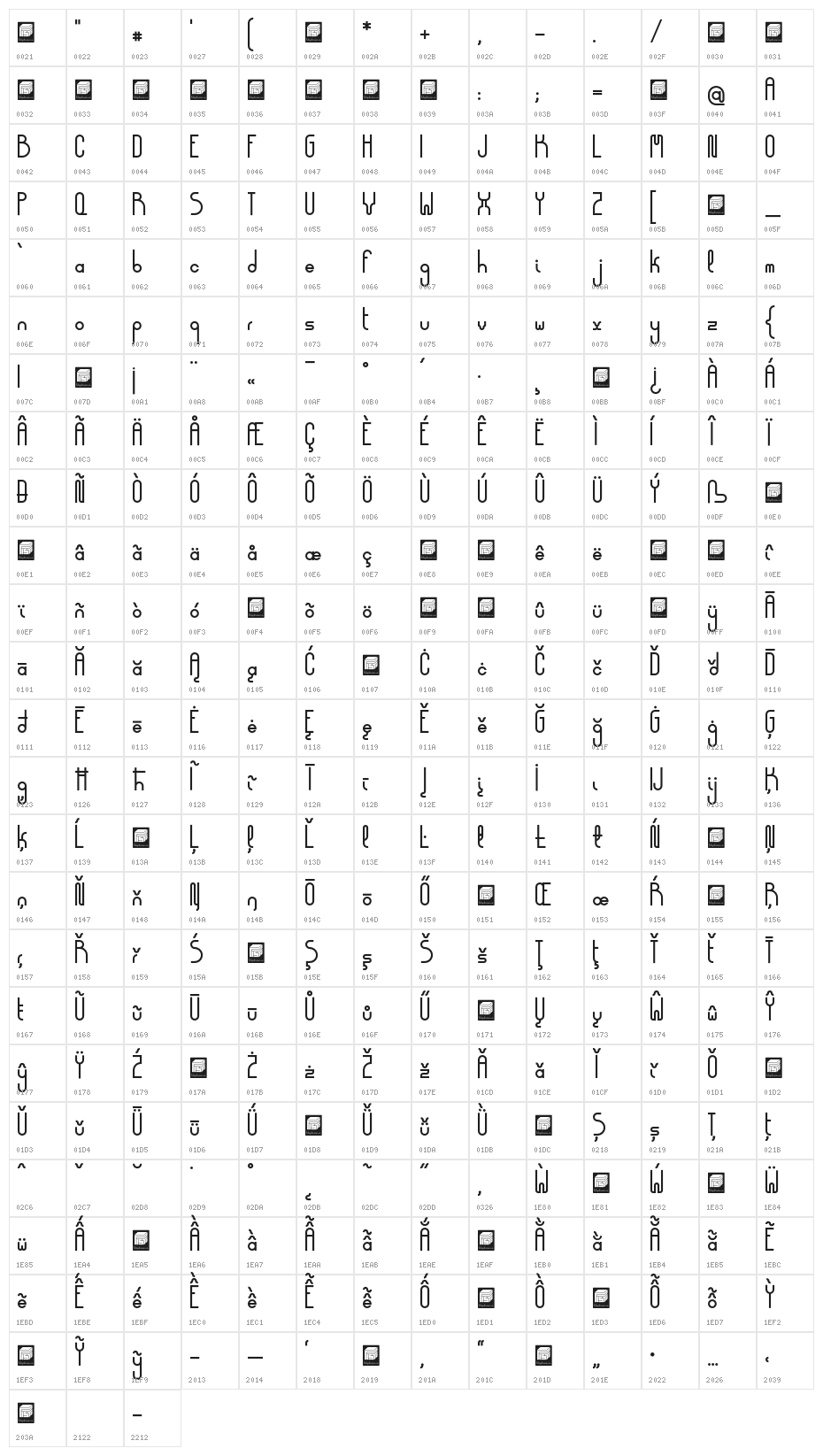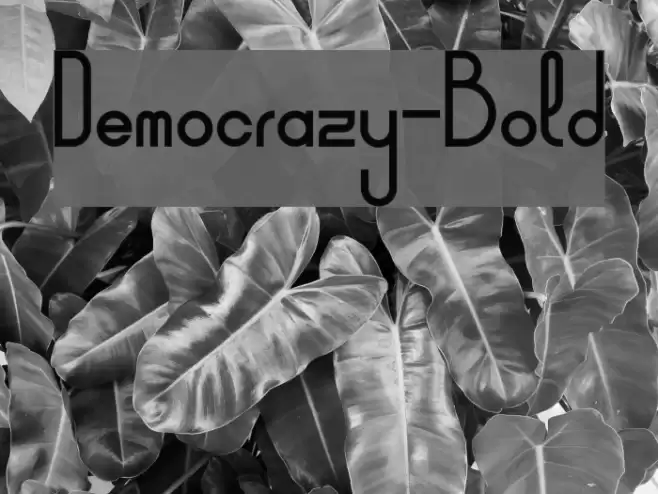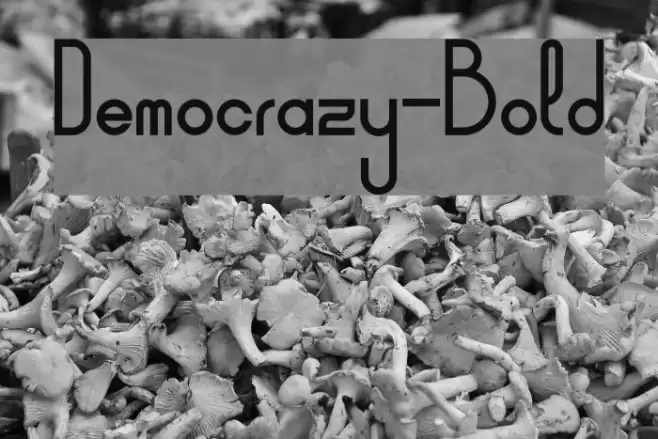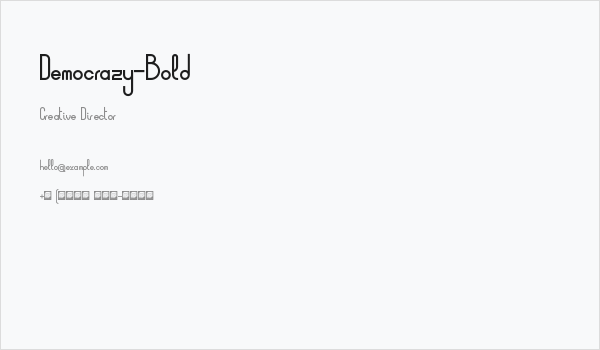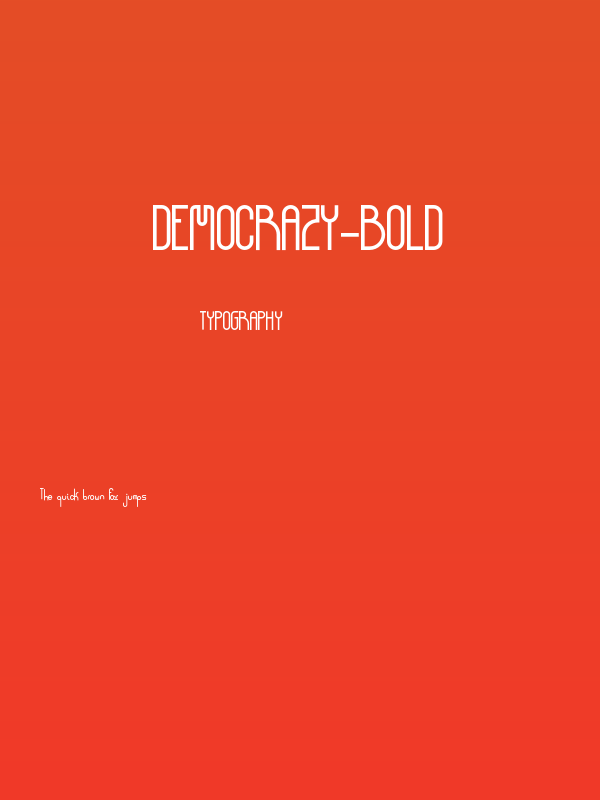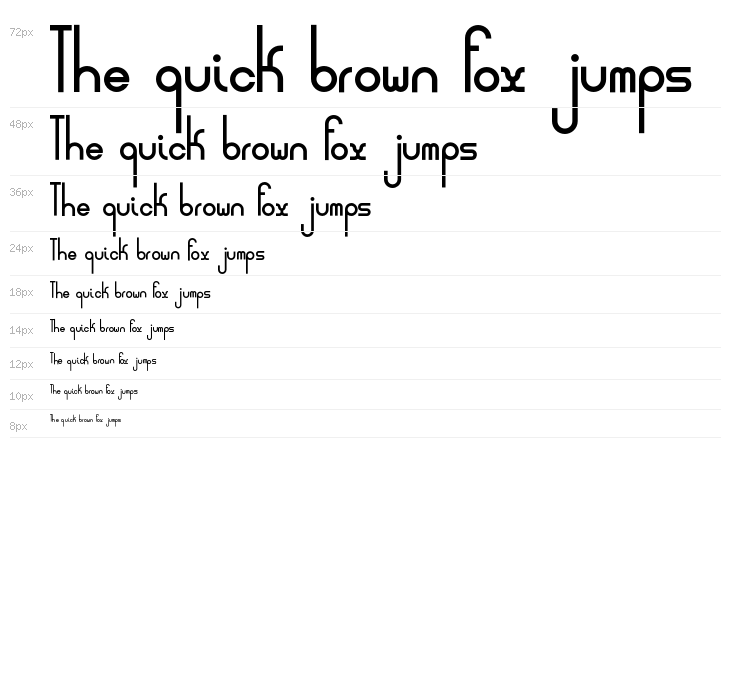
Democrazy-Bold Font
Democrazy-Bold Description
This font features a unique and modern design with elongated, narrow characters that give it a sleek and futuristic appearance. The uppercase letters are tall and uniform, while the lowercase letters maintain a consistent height, adding to the font's streamlined look. The geometric shapes and clean lines create a sense of precision and order. The numerals and special characters follow the same design principles, ensuring a cohesive visual style throughout. This font's distinct style makes it suitable for projects that require a contemporary and innovative touch.